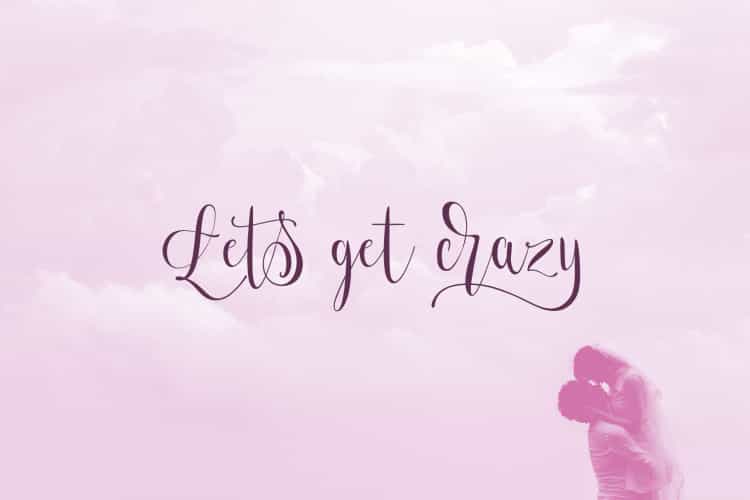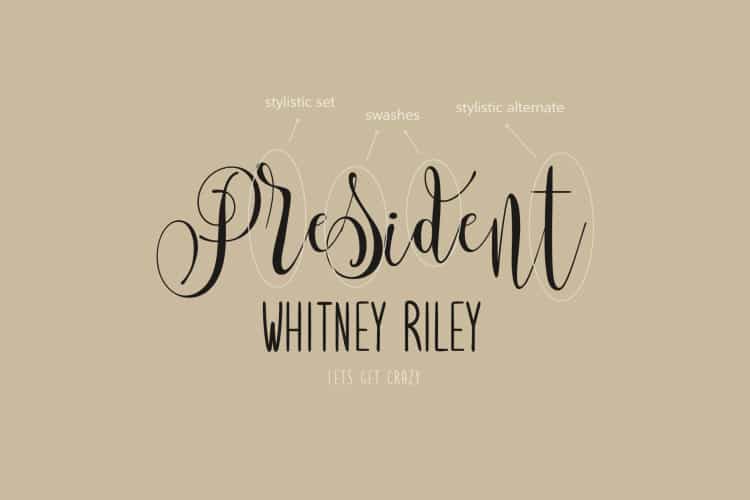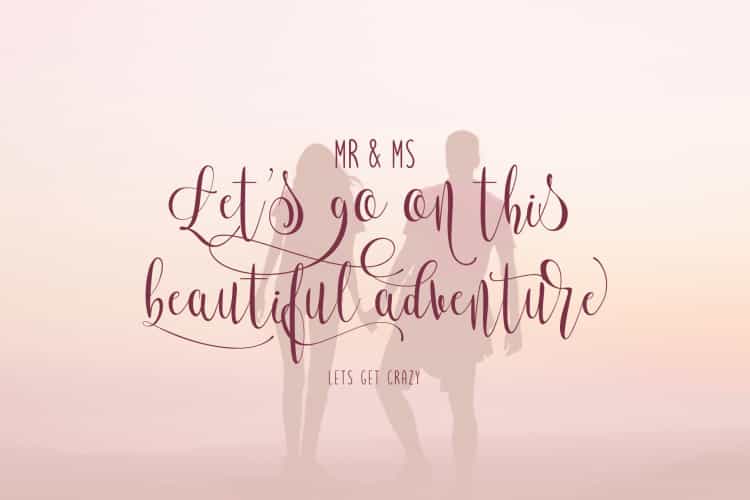
Discover Lets Get Crazy Font Duo, part of the Sans Serif Calligraphy Handwritten collection—a versatile and unique font perfect for adding a personal touch to your projects. Download it for free and enjoy crafting designs with style, from invitations to social media posts. This font is available exclusively for personal use, giving you the freedom to create without limits. Unlock your creativity with Lets Get Crazy Font Duo today!
Let’s Get Crazy Font Duo-A unique combination of a beautiful handwritten type and a minimal sans-serif font that makes for stunningly luxurious designs, top-notch logos.IS is designed by vectalex.